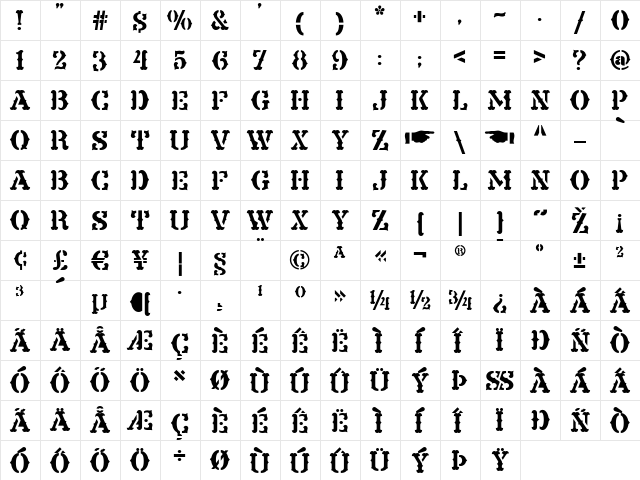
Waxahachie WBW Regular
Design Context for Waxahachie WBW Typeface
Waxahachie WBW is a composed and adaptable typeface that performs quietly and consistently across a wide range of design contexts.